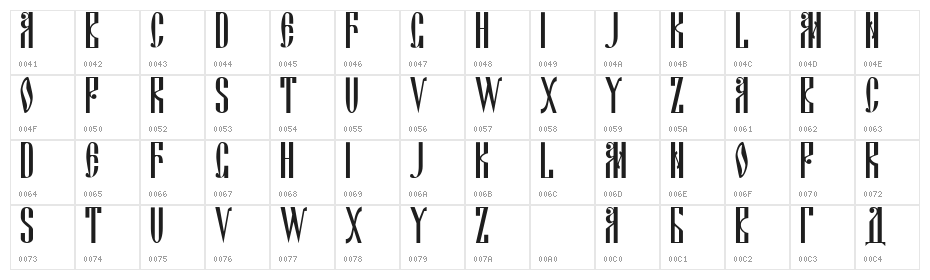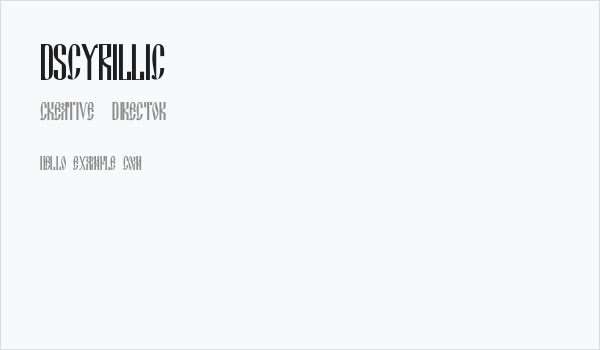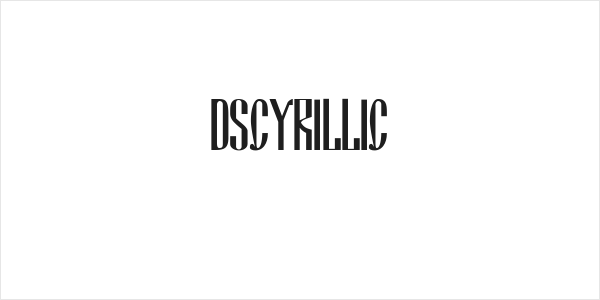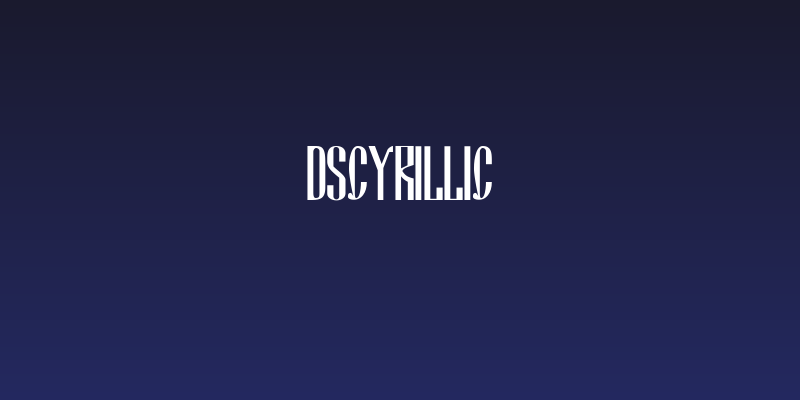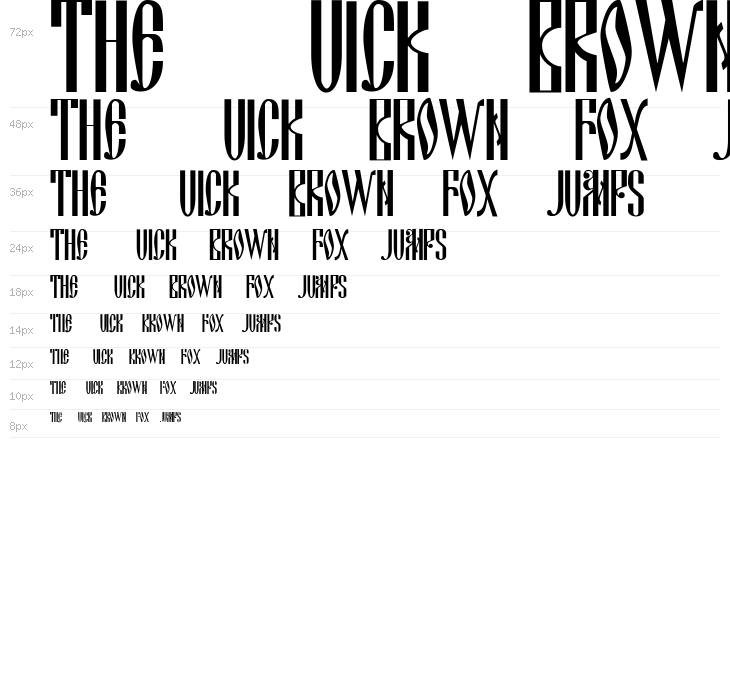
DSCyrillic Font
DSCyrillic Description
This font features a distinct, decorative style with elongated, narrow characters that incorporate unique, ornamental elements. The uppercase letters are particularly striking, with some incorporating intricate flourishes and loops that add a touch of elegance and complexity. The overall design is bold and eye-catching, making it suitable for creative and artistic projects. The font maintains a consistent height across characters, contributing to a uniform appearance. Its decorative nature suggests a focus on visual impact rather than readability, making it ideal for specific design contexts where style is prioritized.
| Use Case | Logos, Headlines, Artistic Posters |
| Proposed Projects | Ideal for artistic posters, branding, logos, and any project requiring a bold, decorative touch. |